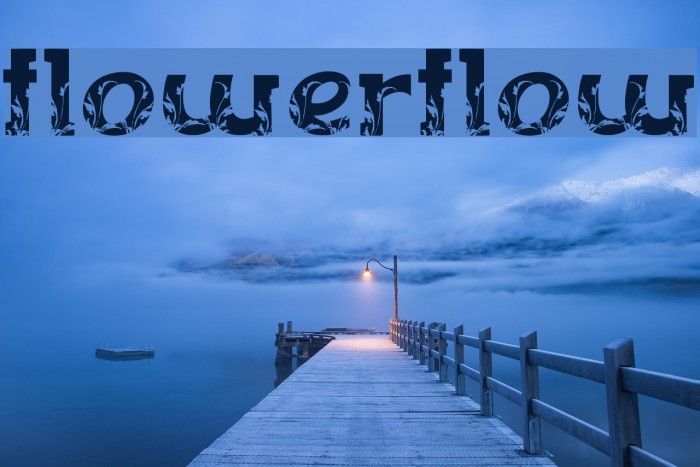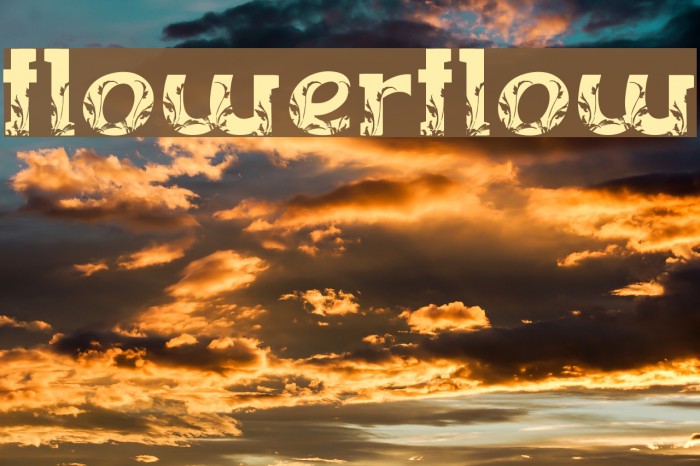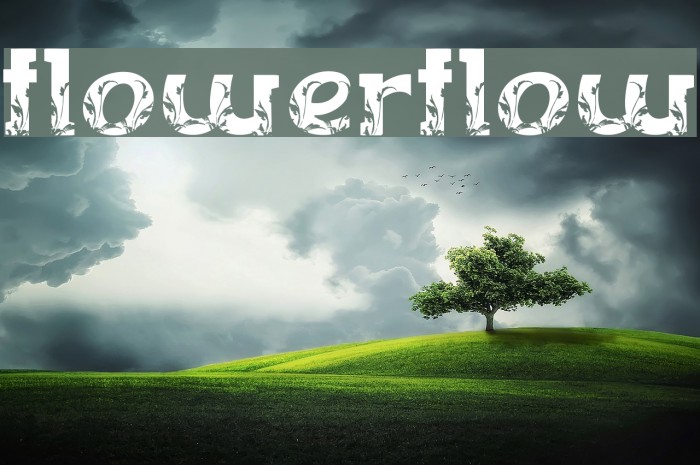
FLOWERFLOW Font
This font features a playful and decorative style, incorporating floral elements within the characters. The design is bold and eye-catching, with a unique blend of traditional letterforms and artistic embellishments. The uppercase and lowercase letters maintain a consistent style, with the floral patterns adding a whimsical touch. The font's overall appearance is both modern and artistic, making it suitable for creative projects that require a distinctive and memorable typeface.
A decorative font with floral elements and bold, artistic letterforms.